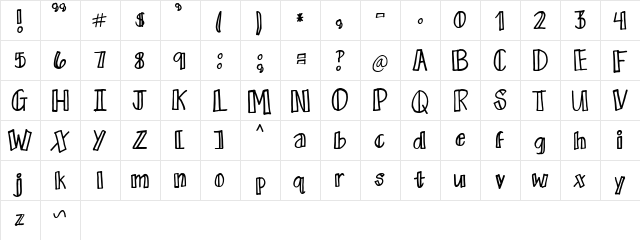
Mazgiz Regular
Design Context for Mazgiz Typeface
Mazgiz is a composed and adaptable typeface that performs quietly and consistently across a wide range of design contexts.